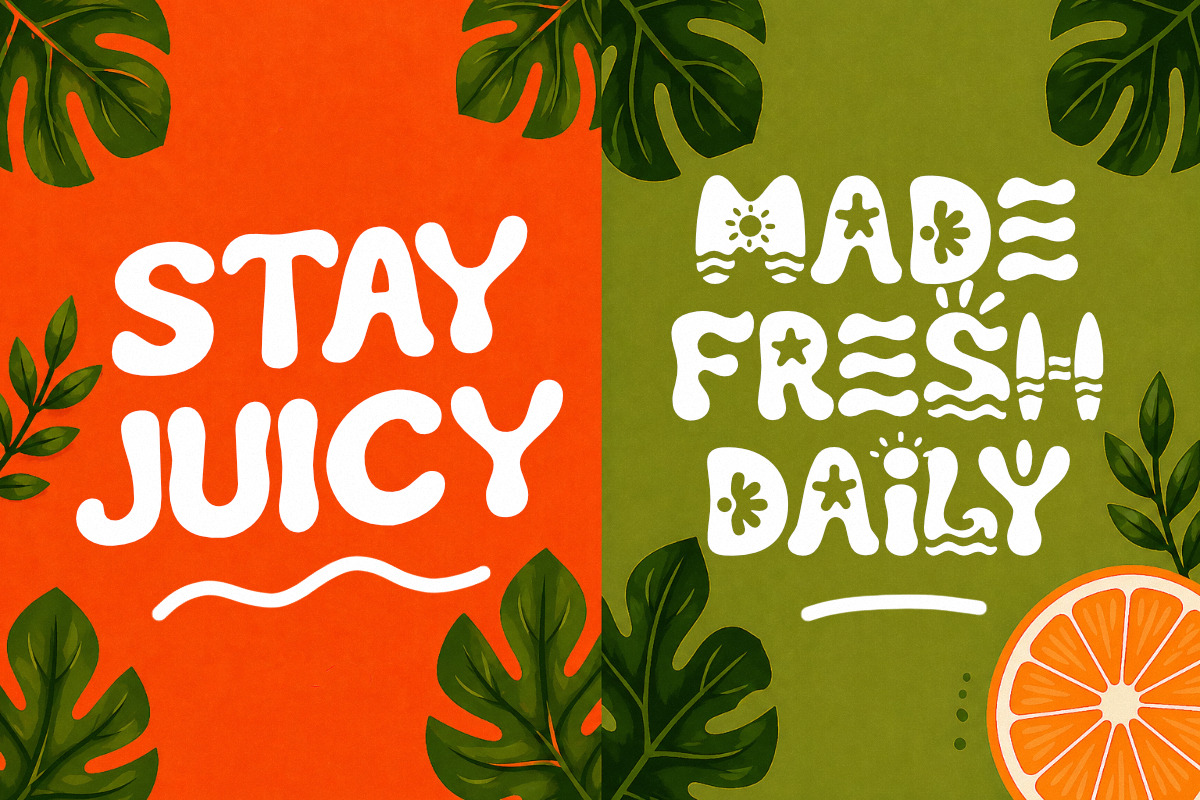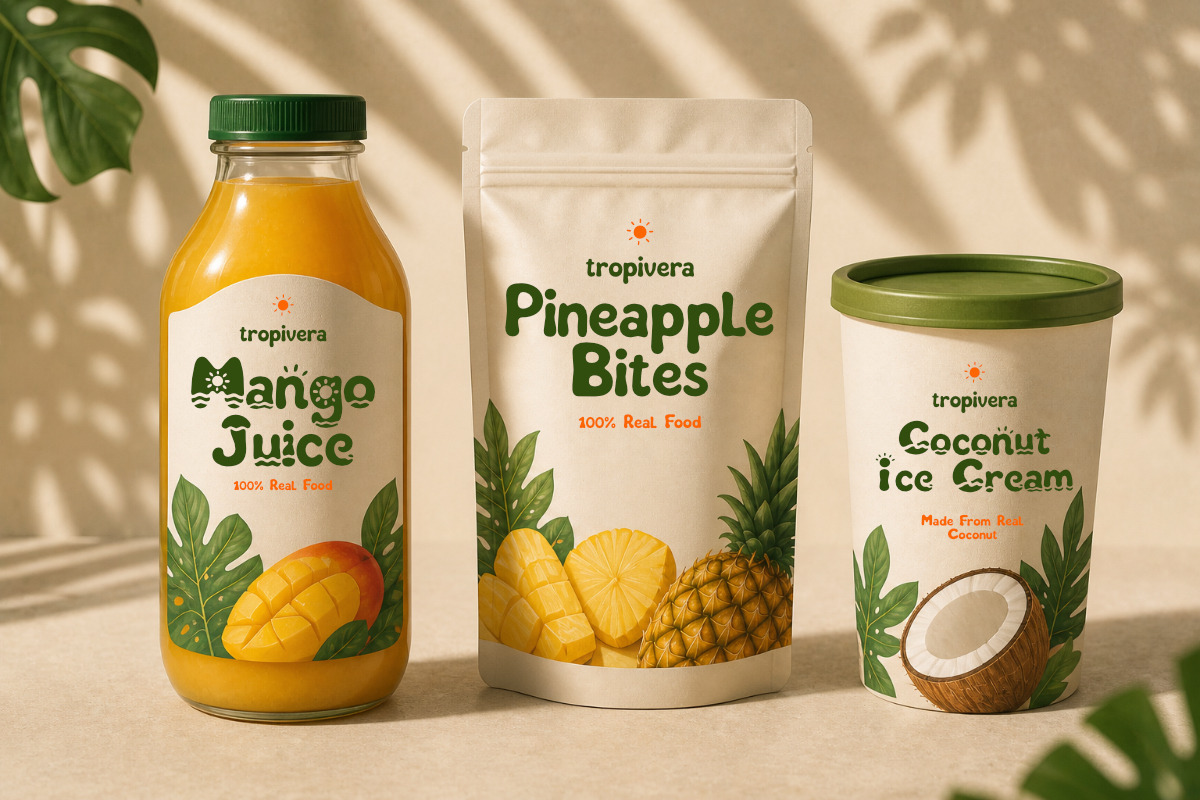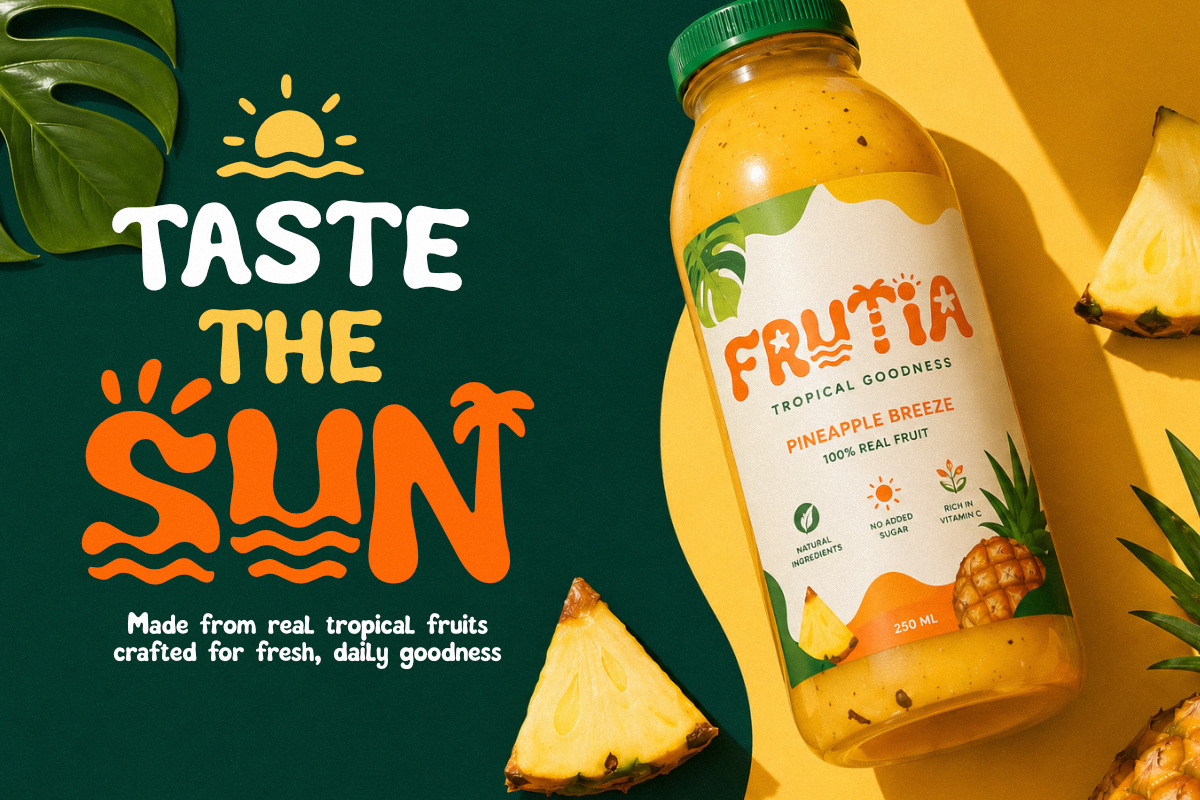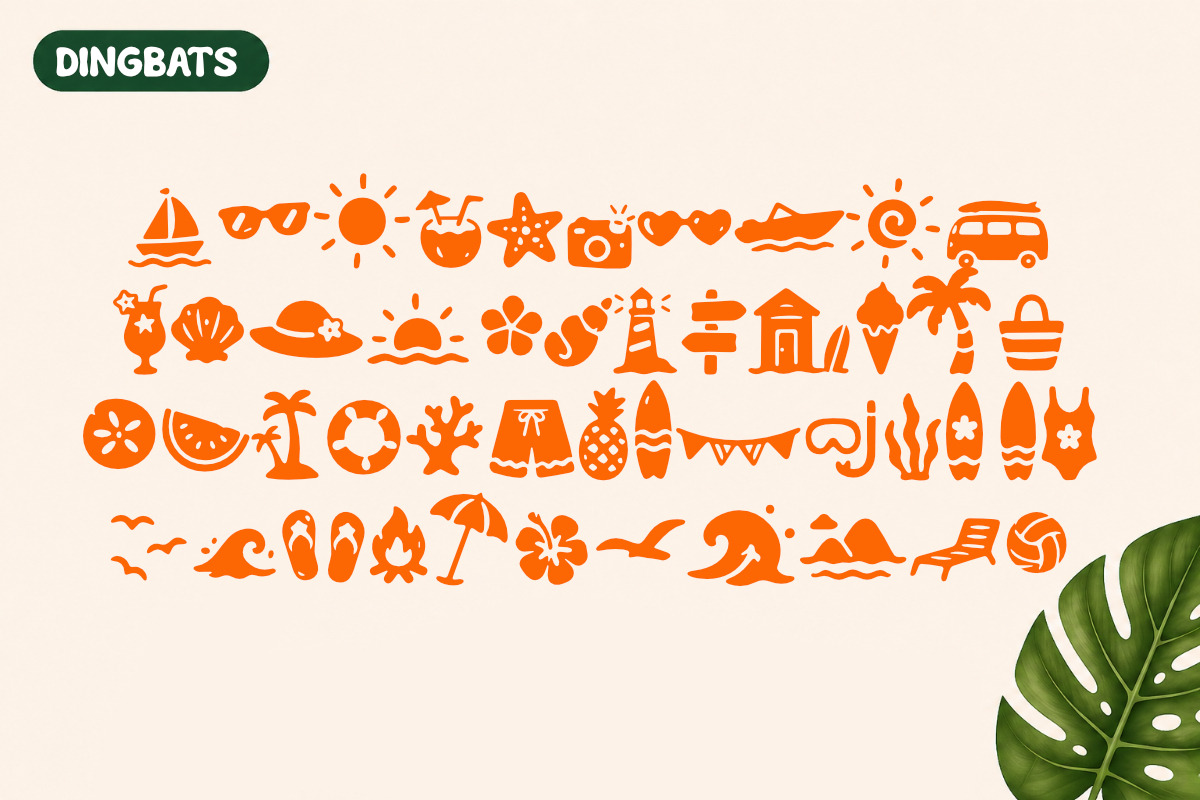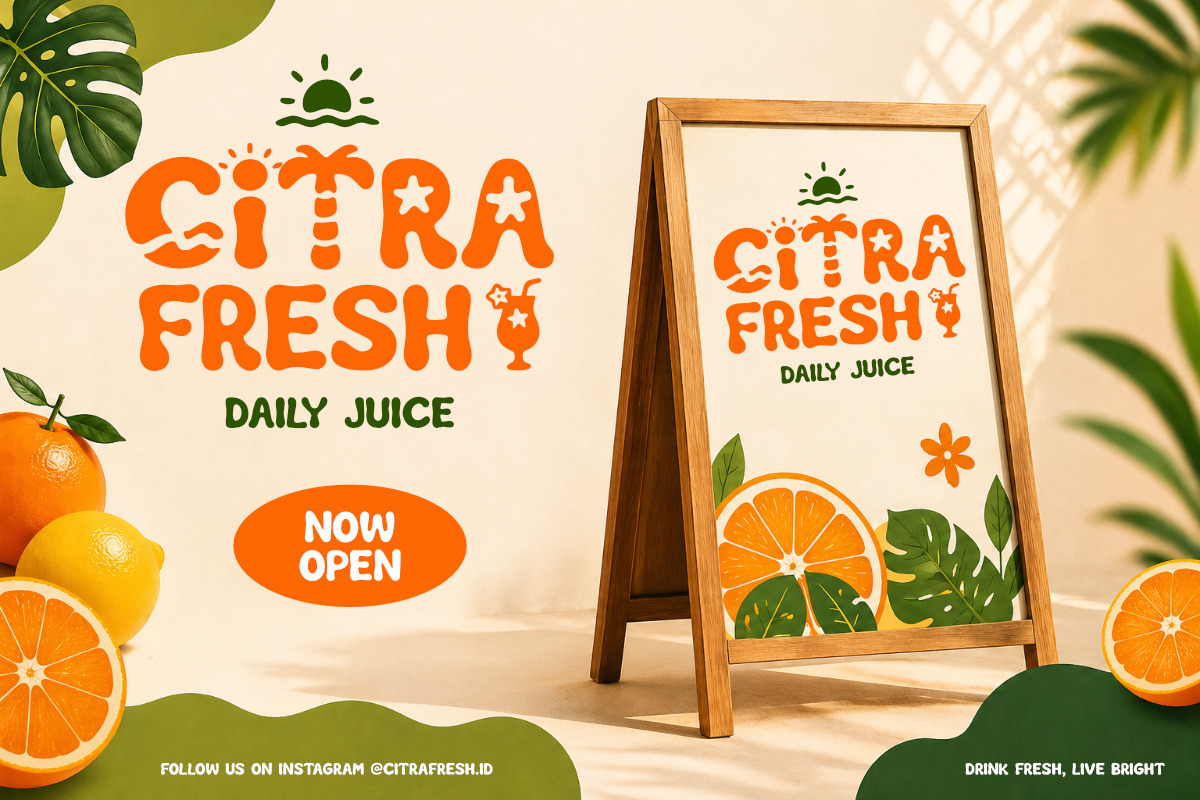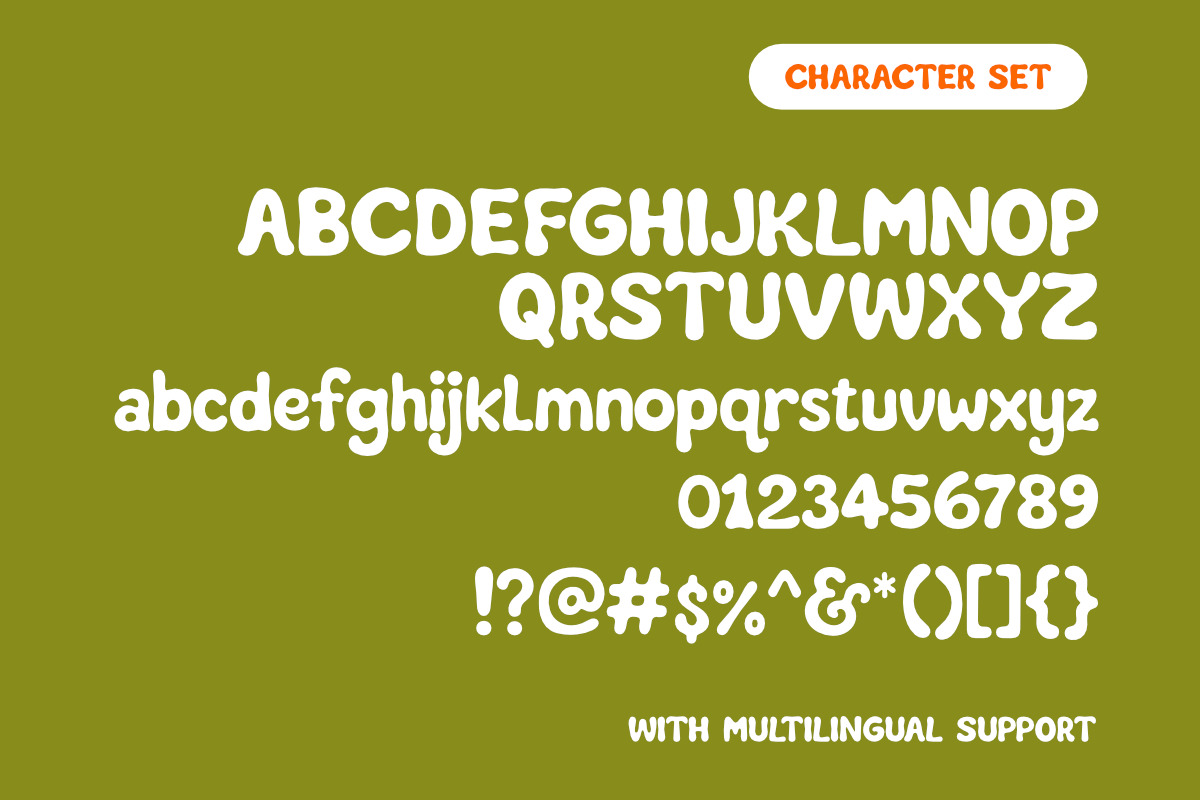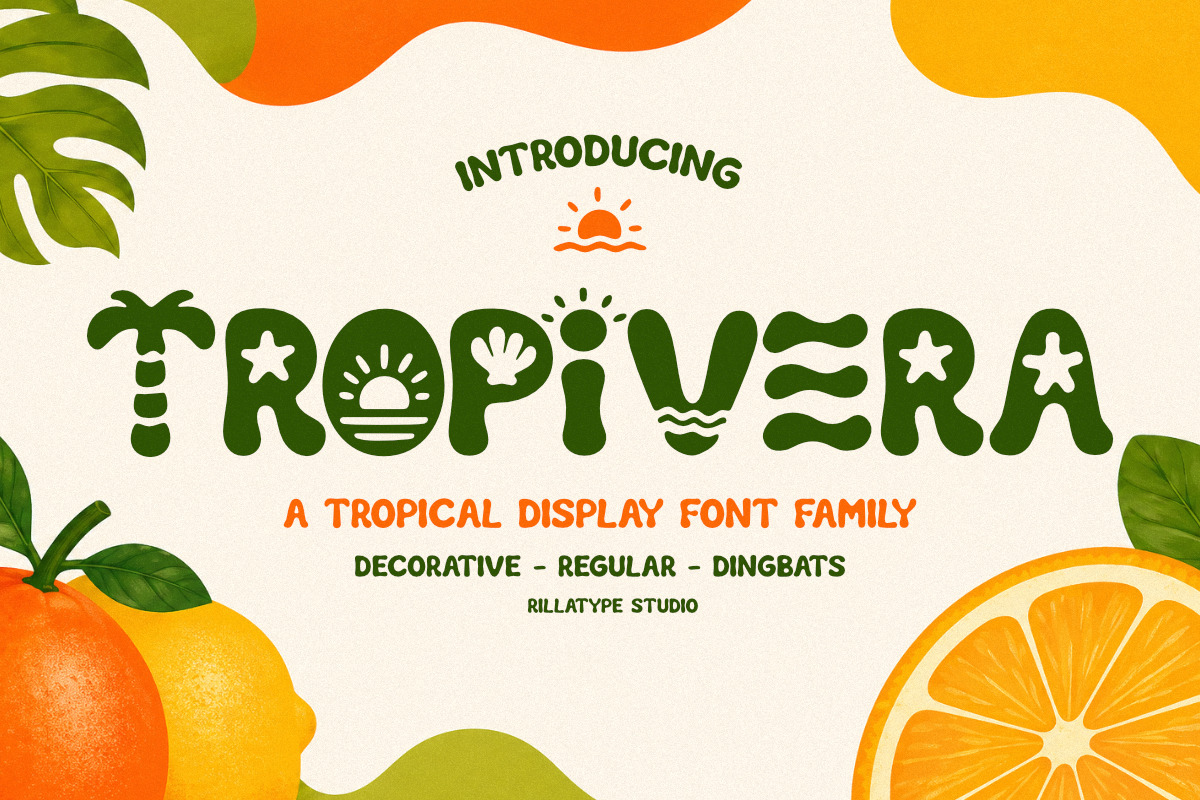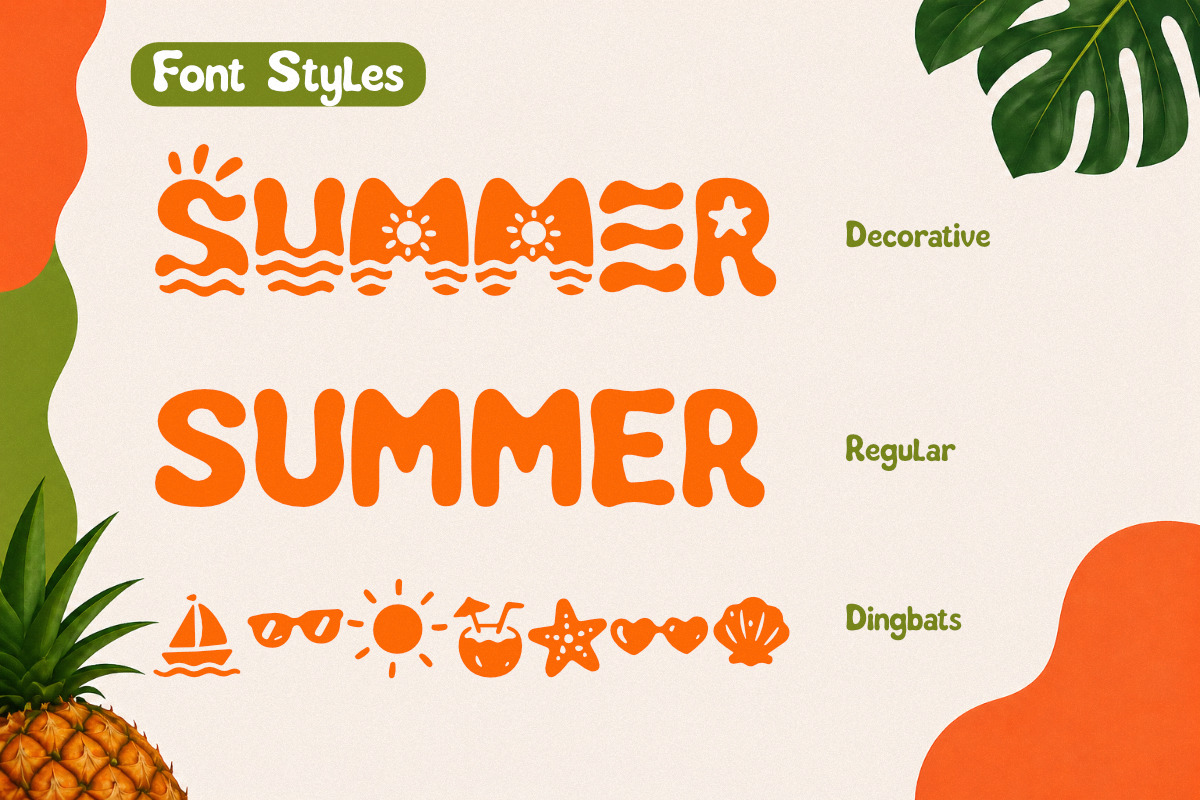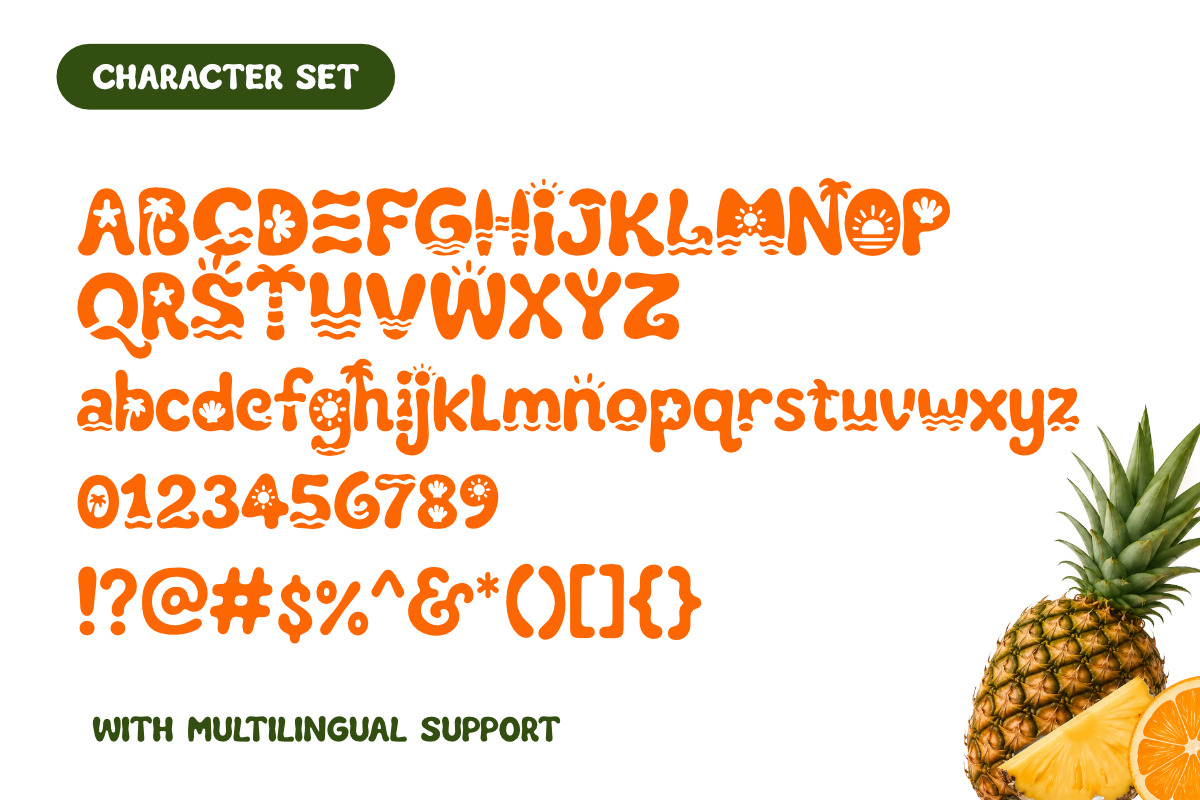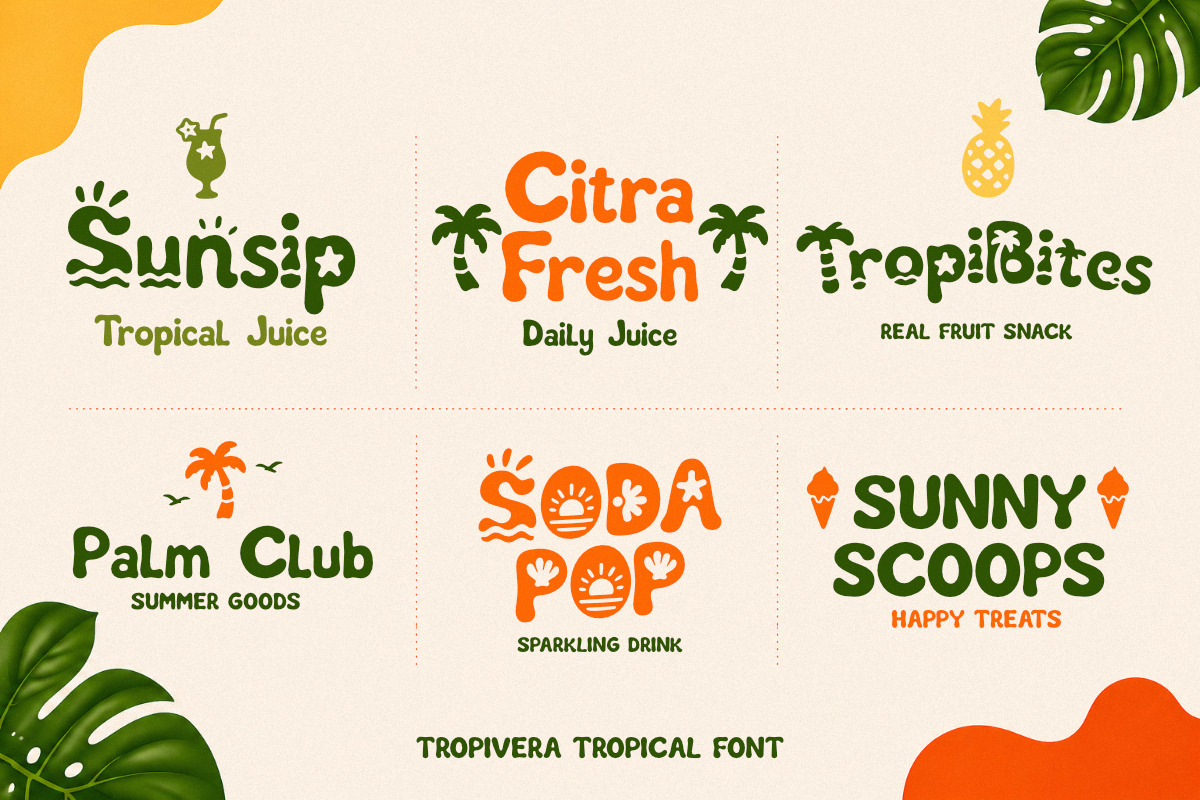
Tropivera - Display Font Family
Tropivera is a playful and vibrant display font inspired by tropical vibes, sunshine, and juicy flavours. With its bold, rounded shapes and fun decorative elements, this font is designed to bring warmth, freshness, and personality into your designs.
Perfect for creating eye-catching visuals, Tropivera comes in multiple styles that give you full creative flexibility—from expressive headlines to clean, readable text and fun icon combinations.
Decorative Style
Regular Style
Dingbats Set
Packaging design (juice, snacks, F&B)
Branding & logos
Posters & social media
Café / restaurant visuals
Summer & tropical themes
Why You’ll Love It:
Fun and unique character shapes
Built-in decorative elements for instant styling
Mix & match with dingbats for custom logos
Strong personality for standout branding
Pro Tip:
Combine the decorative letters with dingbats to create custom badges, logos, and packaging visuals effortlessly.